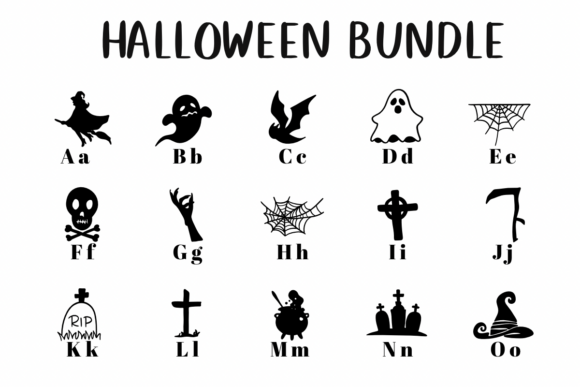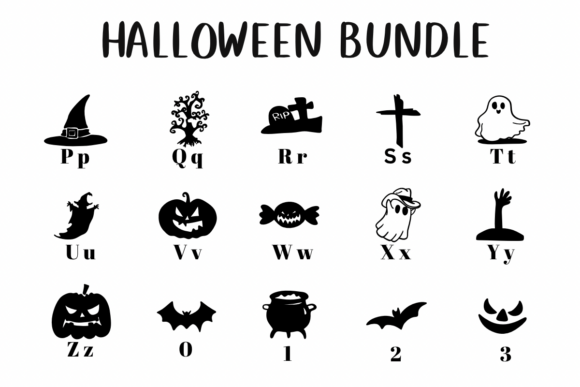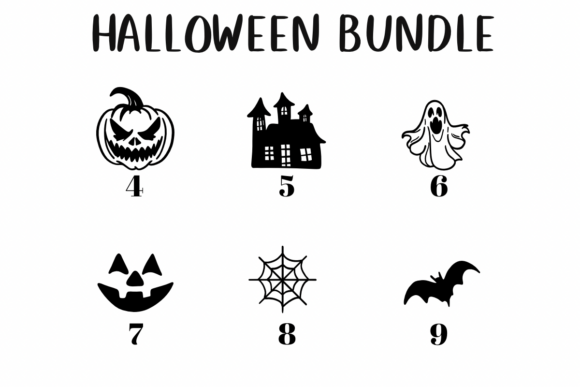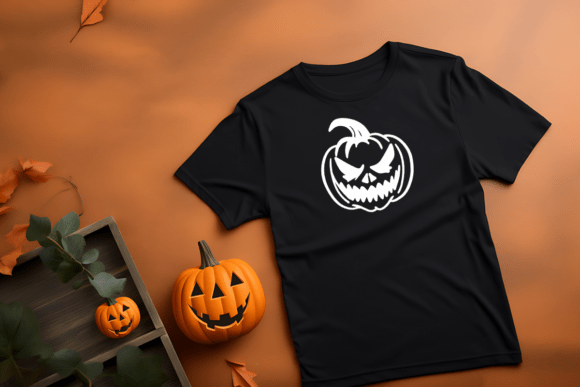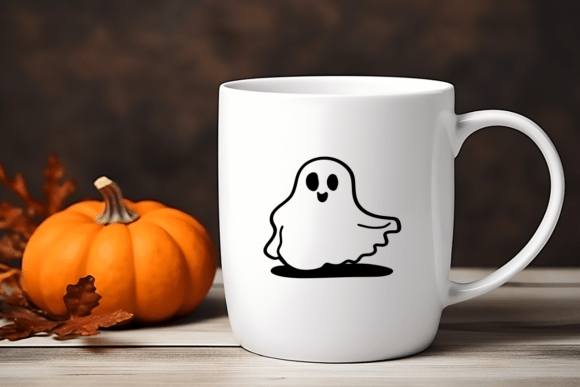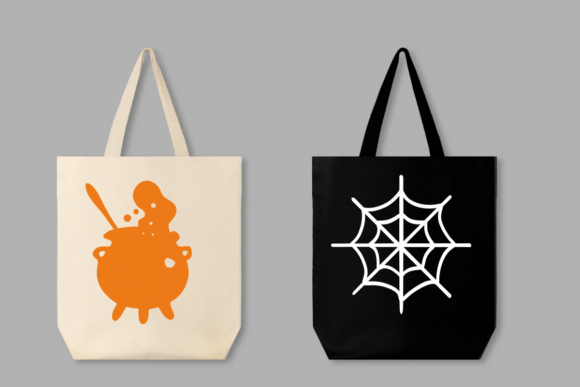
Introduction to Halloween Bundle Font
Halloween Bundle is a dingbats font with a spooky theme.
This font can enhance your creative projects such as wedding invitations, DIY, crafts, decorations, logos, and many other creative ideas .
Key Features of Halloween Bundle Font
Why Choose Halloween Bundle Font?
Halloween Bundle Font offers exceptional quality and versatility, making it a valuable addition to your design toolkit. Whether you’re creating for personal projects or commercial use, Halloween Bundle Font delivers professional results.